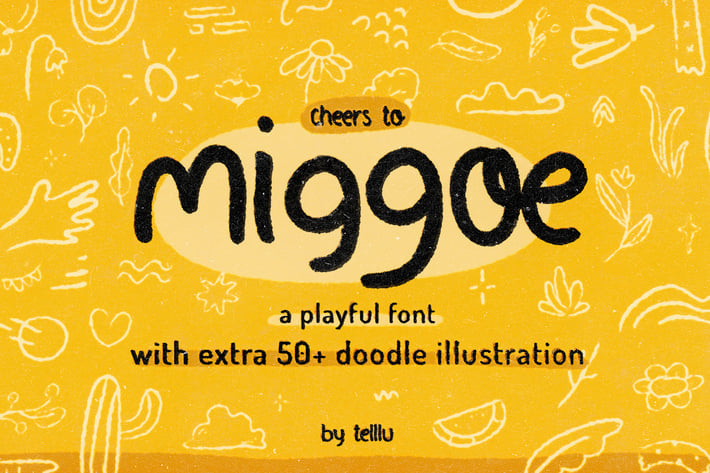
Miggoe - Playful Font with Extra Doodles
Miggoe is a playful font with extra doodles.
It's perfectly suited for your any cute & educational stuffs!
+ 216 Glyphs
+ Ligatures Character
+ Multi-language Characters